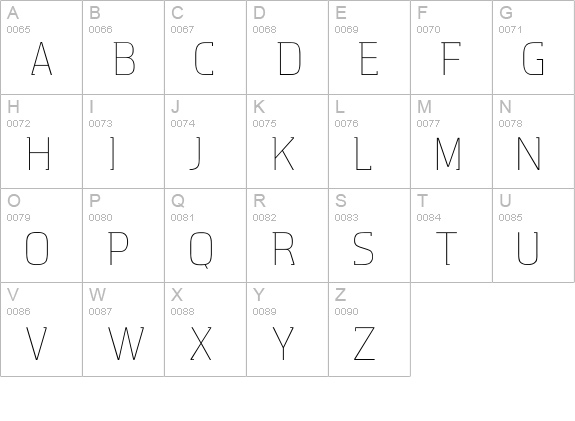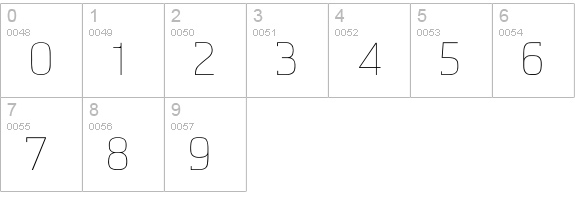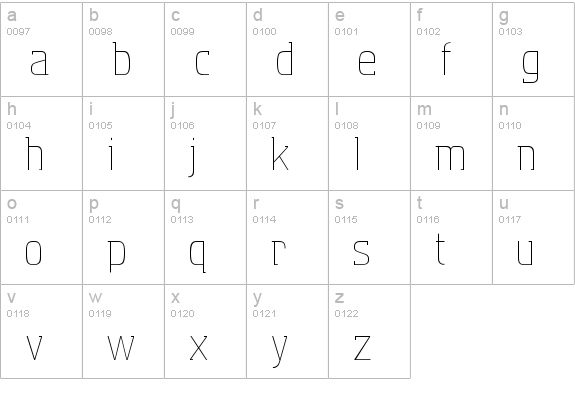
AquariusTwo Font Details
AquariusTwo font is a unique and stylish typeface that exudes a sense of creativity and originality. With its elegant lines and modern design, this font is perfect for a wide range of projects, from branding to social media graphics. The fluid curves and sharp edges of AquariusTwo font give it a dynamic and contemporary feel that is sure to make your text stand out. The best part? AquariusTwo font is completely free to download at FontsMarket.com. Whether you're a designer looking to add a fresh touch to your work or a content creator in need of a striking font for your projects, AquariusTwo font is the perfect choice. Don't miss out on the opportunity to enhance your designs with this stunning and versatile font - download AquariusTwo today and let your creativity shine!